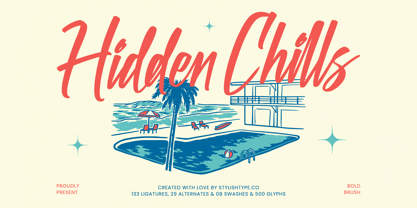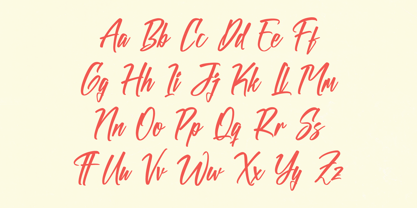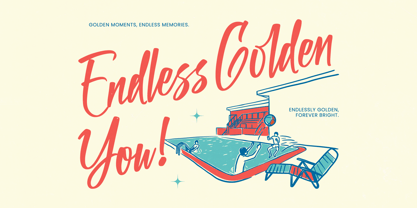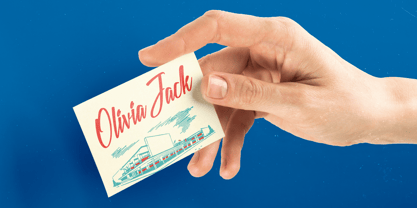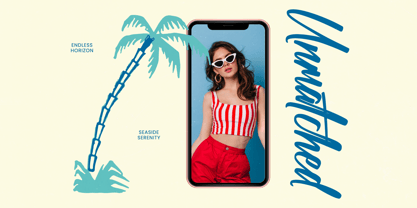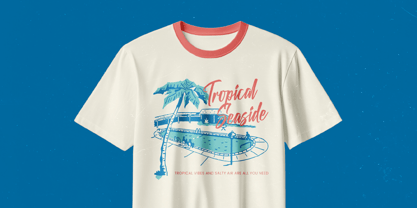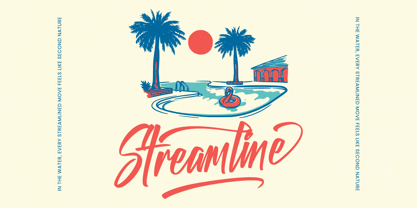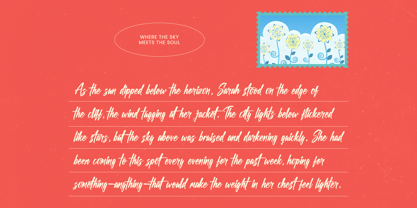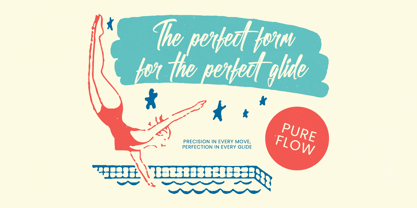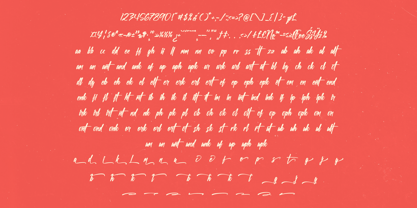
Hidden Chills
by Stylishtype Studio
The Hidden Chills Font Family was designed by Heru Utama Putra and published by Stylishtype Studio. Hidden Chills contains 2 styles and family package options. More about this family
Hidden Chills is a bold brush script inspired by retro summer postcards and chill coastal vibes. Its smooth handwritten strokes deliver an effortless, breezy energy—perfect for lifestyle branding, beach-themed graphics, social media headers, merch, and travel-related designs. With 133 ligatures, 29 alternates, 8 swashes, and 500 total glyphs, this font gives you plenty of creative freedom to craft expressive, dynamic lettering. Ideal for designers who want a warm, relaxed, and sun-kissed handwritten aesthetic.